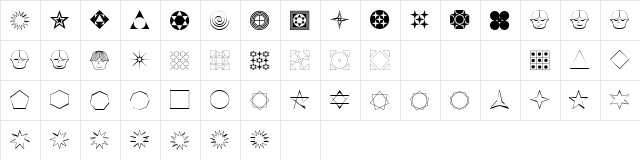
Formas germetricas 1 Regular
Design Context for Formas germetricas 1 Typeface
Formas germetricas 1 takes a measured approach to typography — its balanced proportions and neutral character make it a reliable workhorse for both digital and print work.